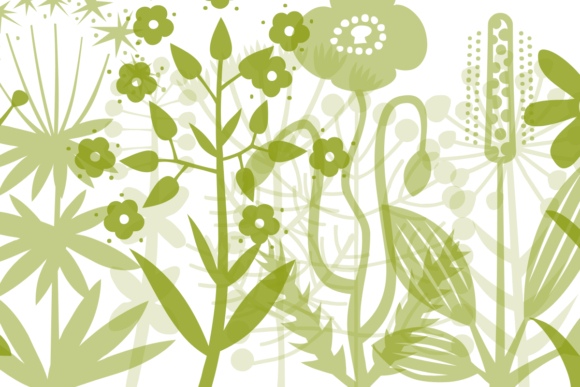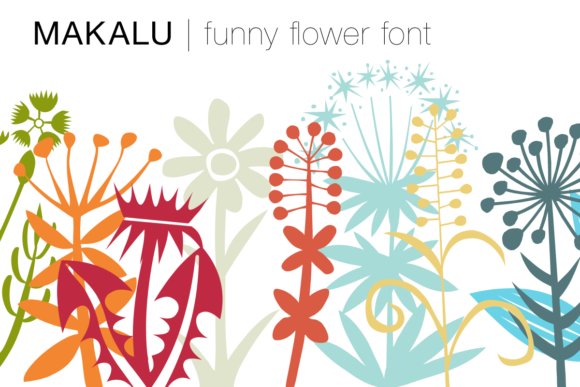
Introduction to Makalu Font
As a designer, you know that sometimes the smallest details can make a big impact on a project. Remember that one moment when you were stuck on a design, and a single element changed everything? For me, it was a quirky font that added a touch of whimsy to a children’s book cover. Today, I want to share with you a design resource that can have a similar effect: the Makalu Font.
This delightful dingbat font is inspired by the charming illustrations of Zdeněk Miler, famous for his lovable mole characters. With 27 original and distinctive illustrations, Makalu Font offers a unique way to add some personality to your designs. Whether you’re working on a creative project or just need a fun element to spice up your design, this font is sure to bring a smile to your face.
- Features a transparent background, making it ideal for use on various design elements.
- Includes a comprehensive set of characters, including uppercase and lowercase letters, numbers, and punctuation marks.
- Designed with a unique, modern aesthetic, making it perfect for a wide range of creative projects.
Honest Review: Makalu Font
I recently stumbled upon the Makalu Font, and I must say it’s been a great addition to my design resource collection. This free download has some amazing features that make it perfect for my creative projects.
- ✨ Unique and modern design aesthetic: The Makalu Font offers a sleek and contemporary look that’s perfect for any modern design project.
- ✨ High-quality vector graphics: The font is available in vector format, making it easy to scale and manipulate without losing any quality.
- ✨ Transparent background: This feature allows for seamless integration with any background, giving me more creative freedom with my designs.
- ⚠️ Limited language support: The Makalu Font only supports a limited number of languages, which might be a concern for designers working on multilingual projects.
- ⚠️ No bold or italic styles: The font doesn’t come with bold or italic styles, which might limit its use in certain design scenarios.
Overall, I’m impressed with the Makalu Font’s quality and versatility. While it has some limitations, it’s still a valuable resource for designers working on creative projects. I’d definitely recommend it to anyone looking for a high-quality font for their next design project.
Makalu Font
Using Makalu Font in Creative Projects
The Makalu Font is ideal for use in creative projects that require a unique and eye-catching font. With its transparent background, it can be easily layered over other design elements to create a cohesive look.
Tips for Getting the Most Out of Makalu Font
To get the most out of the Makalu Font, experiment with different font sizes, colors, and layering techniques to create a unique and visually appealing design.
The Makalu Font is commonly used in a variety of design projects, including logos, brochures, business cards, and social media graphics.